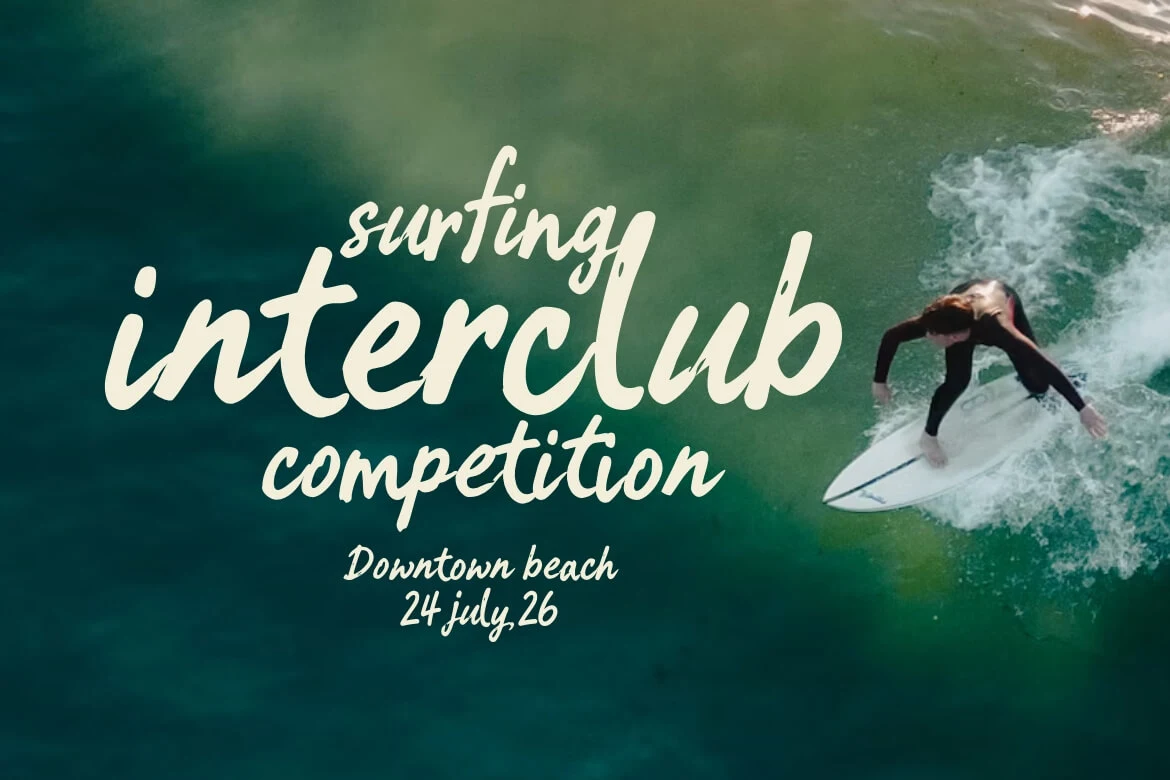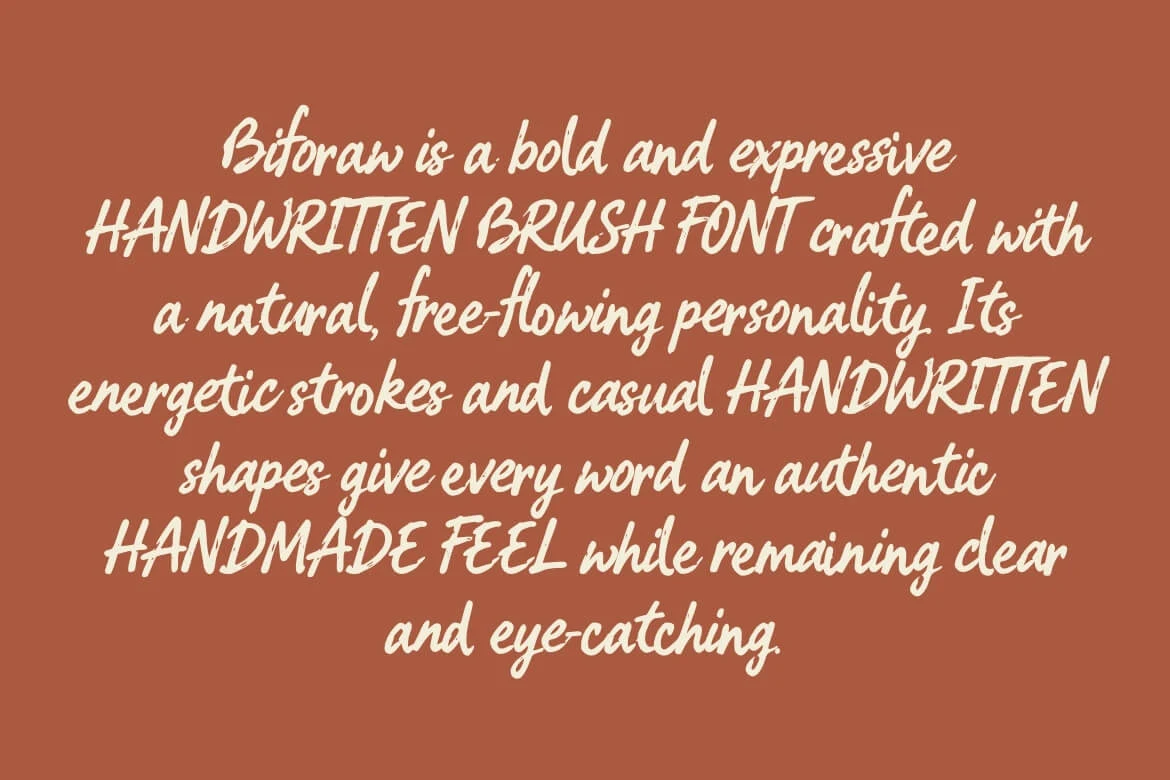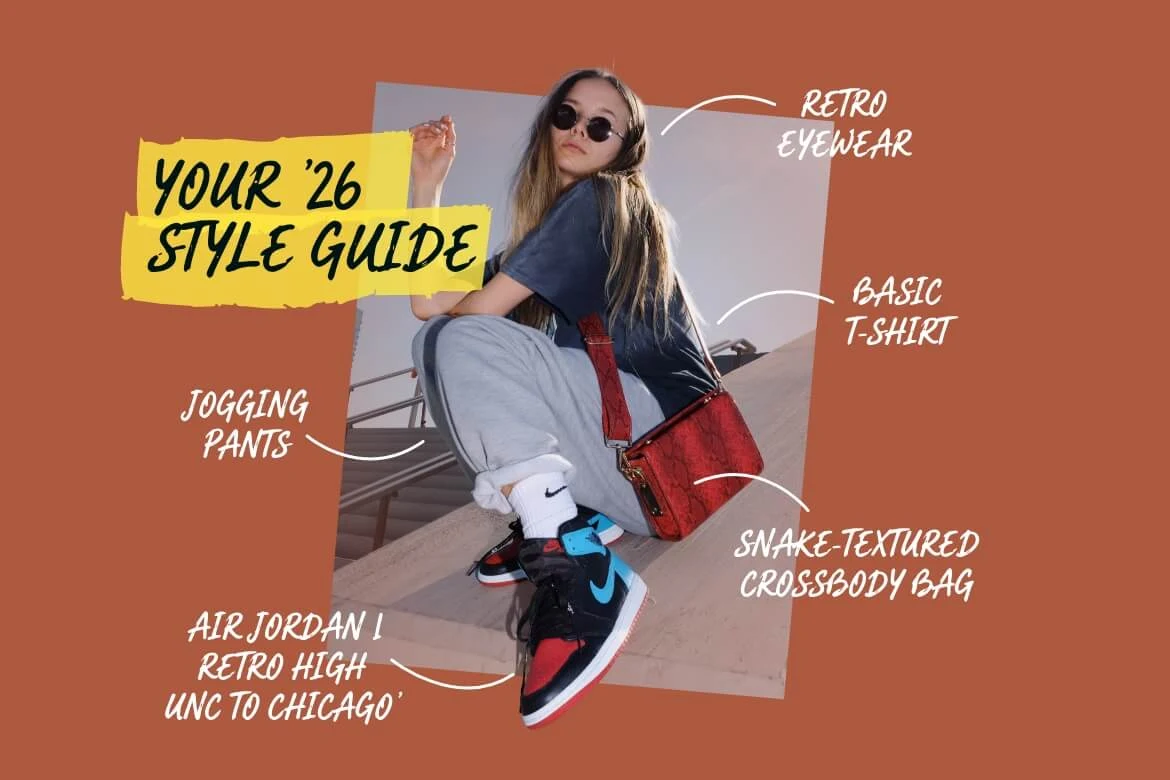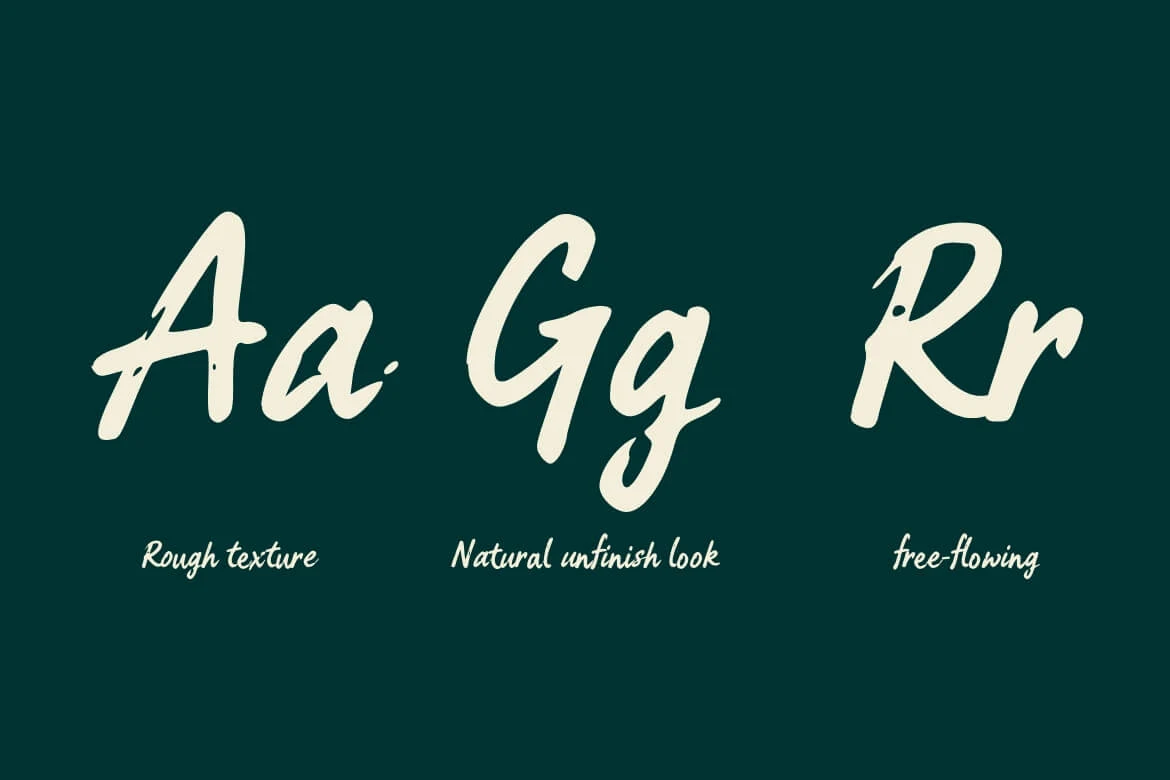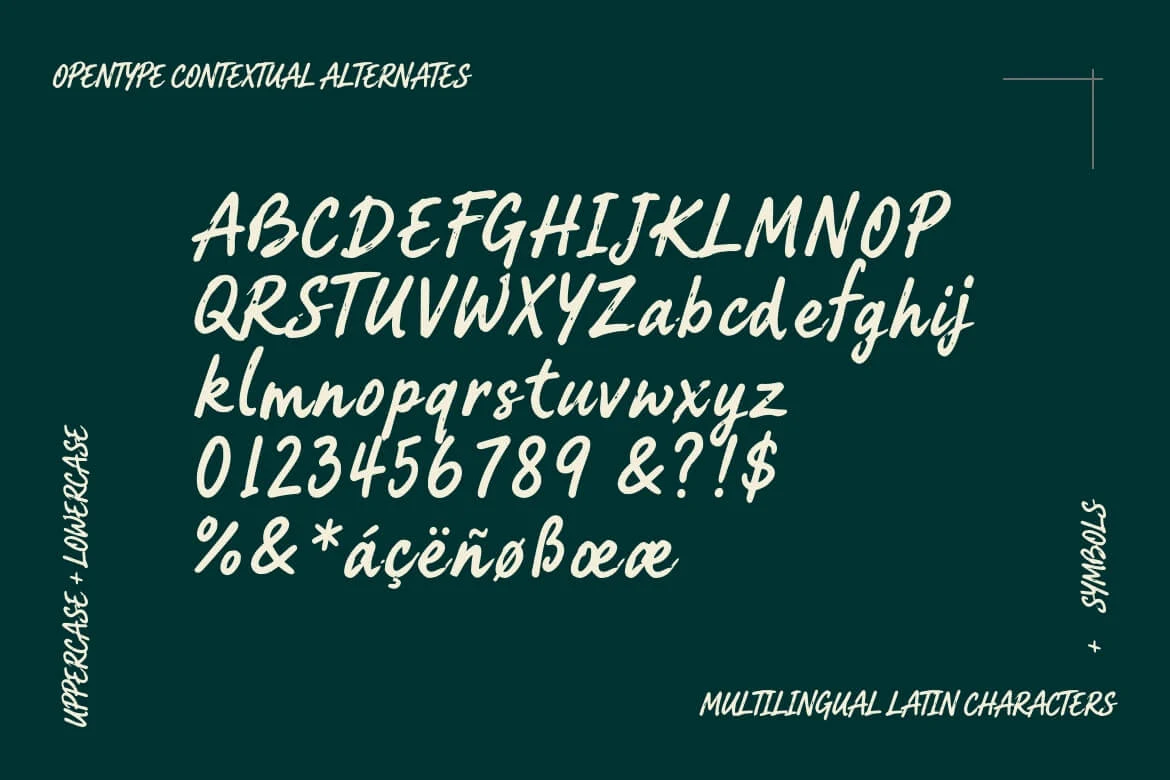
Biforaw
Biforaw is a bold, expressive handwritten brush font designed with a raw, tactile presence. Crafted with free-flowing strokes and visible dry brush texture, it brings a genuine, naturally unfinished feel to your visual work.
The letterforms carry an energetic rhythm while maintaining balanced weight and solid legibility. Whether set in large display headlines or used for punchy accent phrases, Biforaw delivers immediate character without feeling overly complicated.
It is a comfortable fit for independent brand identities, packaging, poster graphics, signage, and expressive editorial layouts where an authentic handmade touch is needed. Standard package includes OTF and TTF desktop formats (webfonts available separately upon request).